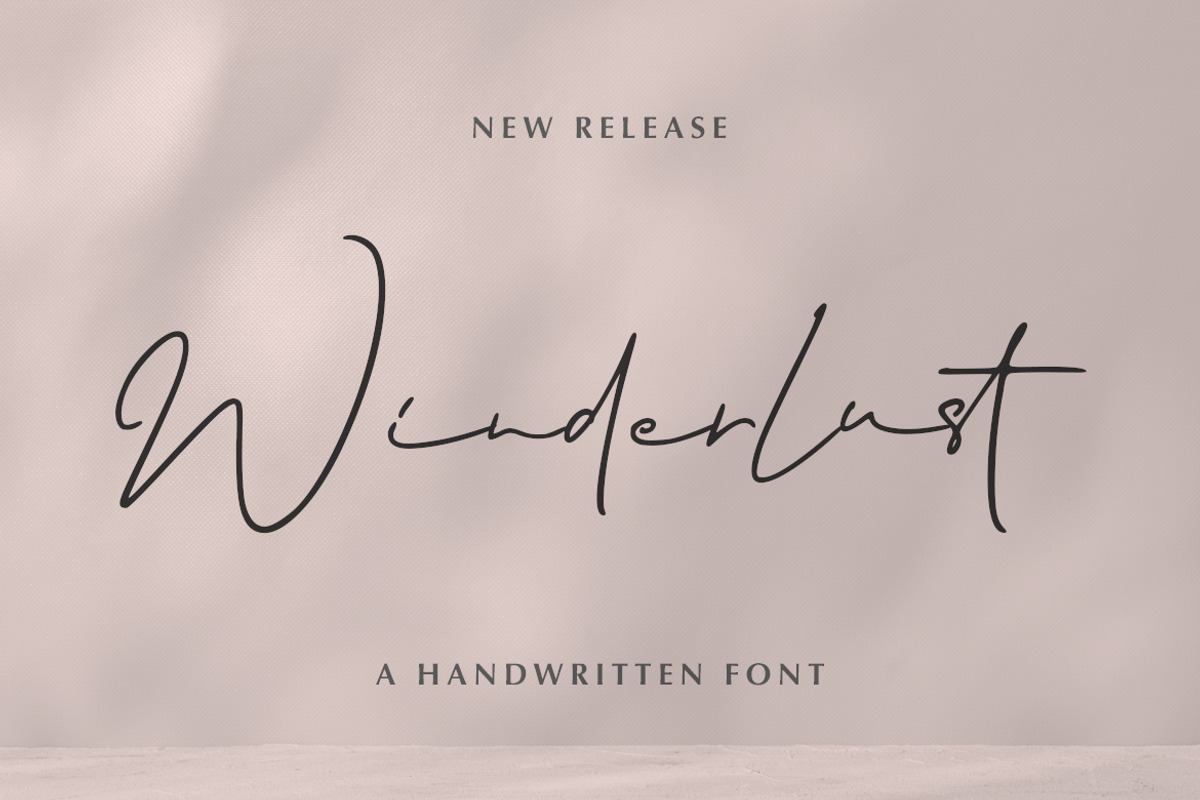
Winderlust – A Handwritten Font Free Download is a charming and organic typeface inspired by the spirit of travel, creativity, and adventure. With its casual strokes and natural rhythm, this handwritten font is perfect for travel blogs, lifestyle branding, wedding invitations, social media posts, and product packaging that needs a personal, heartfelt touch.
Its relaxed and slightly rustic style makes it ideal for designs that aim to feel authentic, warm, and approachable. Whether you're crafting journal graphics or stylish branding for a handmade business, Winderlust brings an expressive, wanderlust-inspired feel to your typography.
Designers love Winderlust for its versatility and down-to-earth personality across both digital and print platforms. Want to give your next project a hand-crafted, adventurous vibe? Download Winderlust – A Handwritten Font Free Download and let your words wander in style.